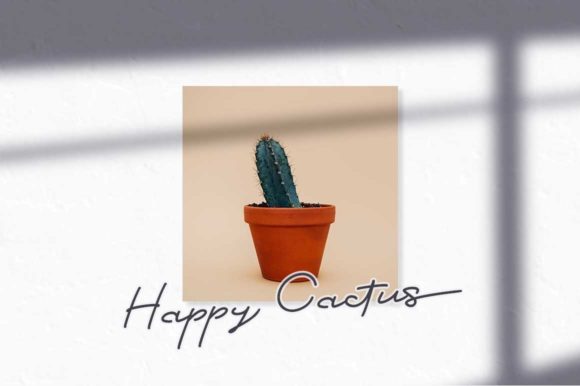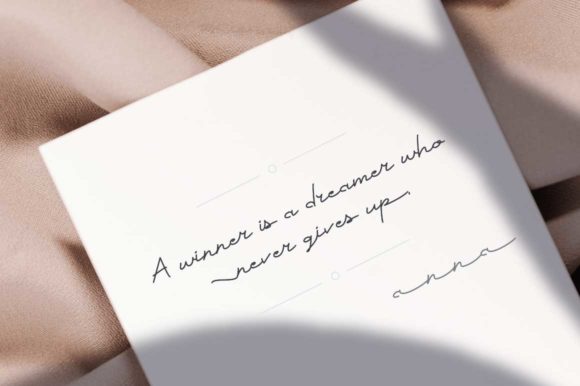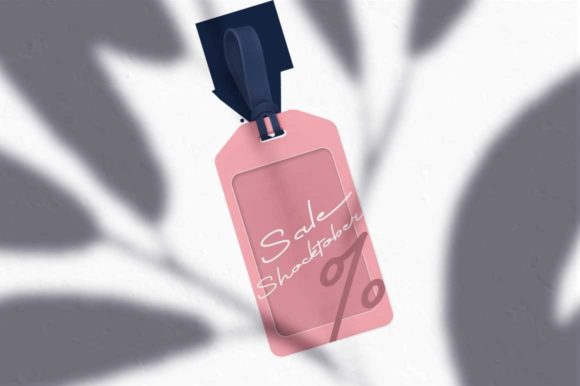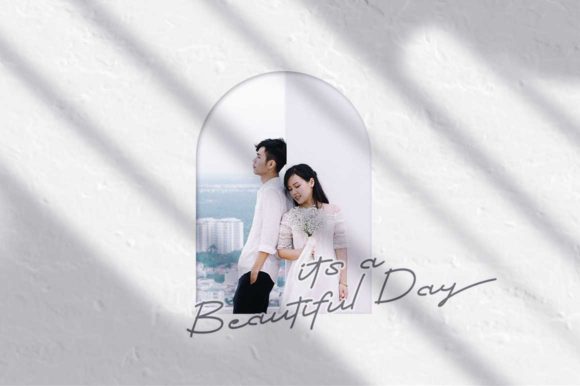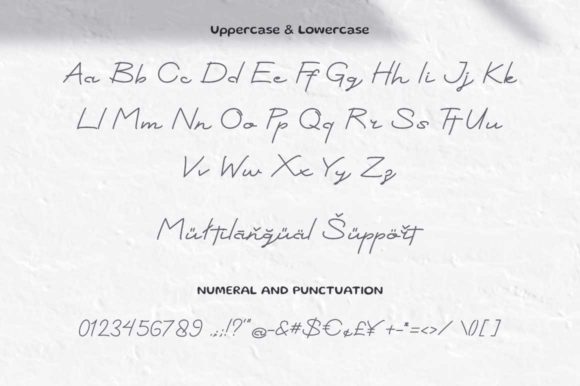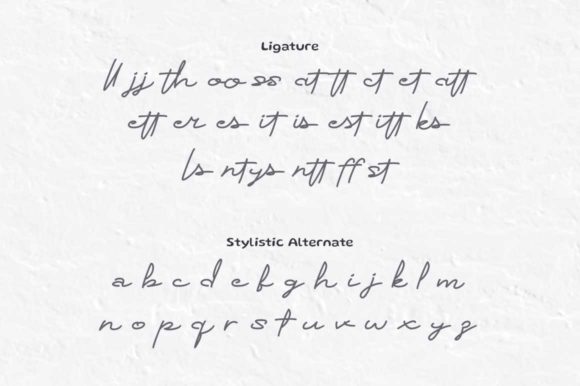
Unleash Your Personal Touch with the Claudette Signature Font
There’s nothing quite like the feeling of creating something from scratch, bringing your unique vision to life with every brushstroke or keystroke. As designers, we know this thrill all too well. It’s the moment when a project begins to take shape, and you can see the potential for something truly special. For many of us, this moment is the spark that sets our creativity ablaze.
One tool that can help you capture this essence is the Claudette Signature Font, a beautiful and elegant handwritten font designed to add a personal touch to your designs. Whether you’re crafting wedding invitations, thank you cards, or logos, this font is the perfect way to convey your unique style and personality. And for designers, its value lies in its versatility and ability to elevate any project to the next level.
Claudette Signature Font Key Features
- Unique Characteristics: This font features elegant, cursive script with subtle flourishes, making it perfect for adding a touch of sophistication and elegance to various designs, such as signatures, invitations, and wedding stationery.
- Professional Use: This font is ideal for professional use, such as in business cards, letterheads, and other formal documents, where a high level of sophistication and elegance is required.
Claudette Signature Font Review
I was excited to dive into the Claudette Signature Font, hoping it would bring a touch of elegance to my designs. Overall, I’d say it’s a solid choice, but with some caveats.
- Unique and stylish design: Claudette has a distinctive look that’s sure to grab attention. The font features a mix of swashes and flourishes that add a touch of sophistication.
- Good legibility: Despite its ornate design, Claudette remains easy to read, making it suitable for a wide range of applications.
- Limited character set: Claudette is a signature font, which means it’s not designed for extended text. If you need to typeset large blocks of text, you might find it lacking.
In conclusion, Claudette Signature Font is a beautiful addition to any designer’s toolkit. While it has its limitations, it’s perfect for those who need a stylish, high-end font for logos, titles, and other short-form text applications.
Getting the Most Out of the Font
Experiment with different font sizes, colors, and styles to create a unique look.
Combine the font with other design elements, such as images and graphics, to create a visually appealing signature.
Use the Claudette Signature Font for:
Personalized business cards and stationery.
Branding and marketing materials.
Wedding invitations and party decor.